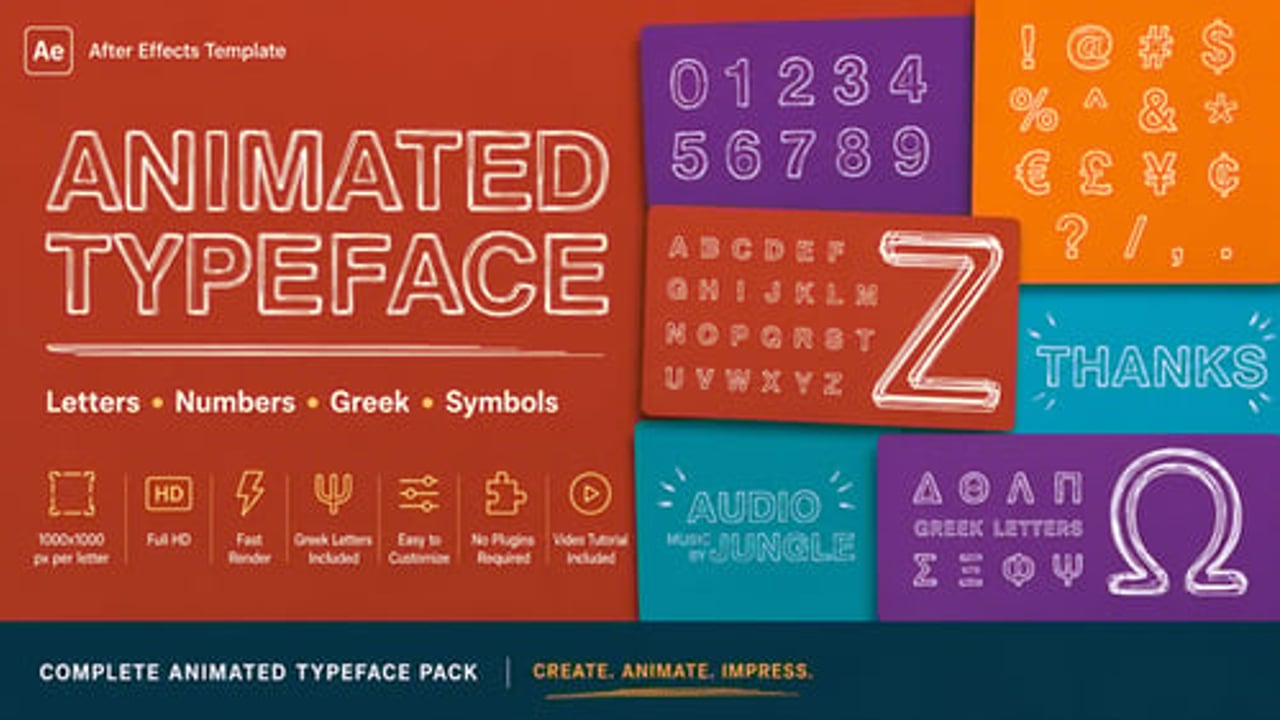
Animated Typeface for After Effects with Letters, Numbers and Greek Characters
A complete animated typeface pack with every letter, number, symbol, and Greek character — all in one After Effects template.
This dynamic template brings your text to life with a playful sketch outline style that delivers a hand-drawn, energetic feel. Whether you're building intros, title sequences, or lower thirds, this animated typeface gives your project a distinctive typographic personality that stands out.
- Full animated alphabet — uppercase letters A–Z
- Numbers 0–9
- Greek letters and characters
- Symbols and special characters
- Sketch outline animation style
This versatile template is ideal for designers and content creators looking to add a bold, hand-crafted typographic look to videos, presentations, or educational materials.